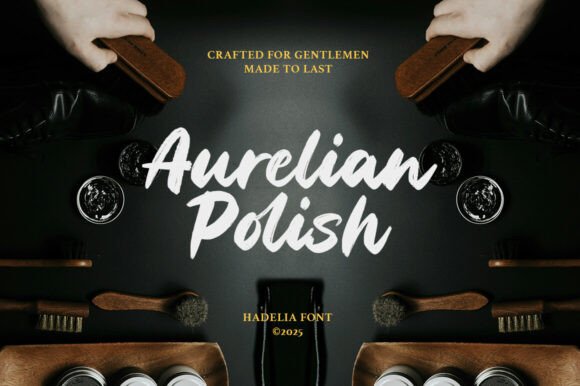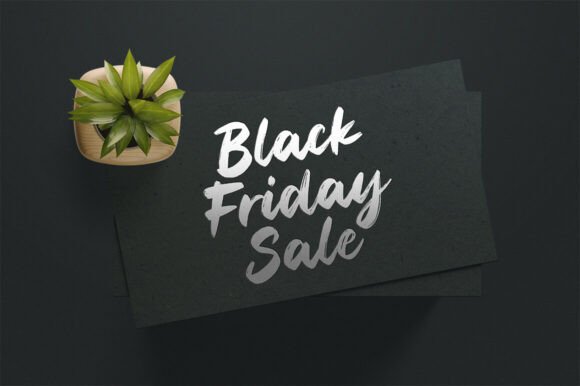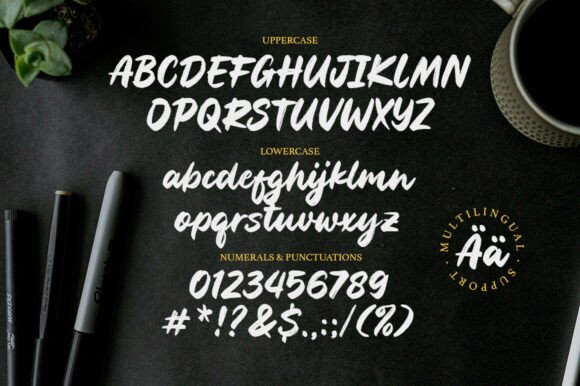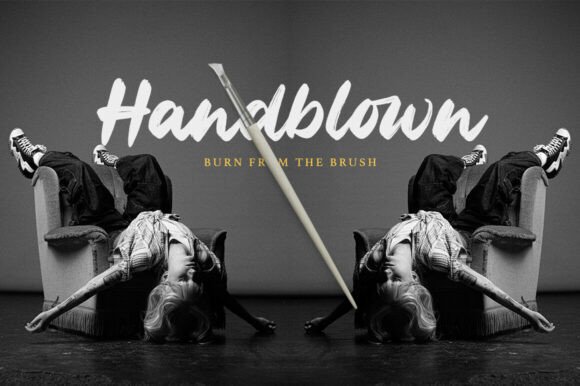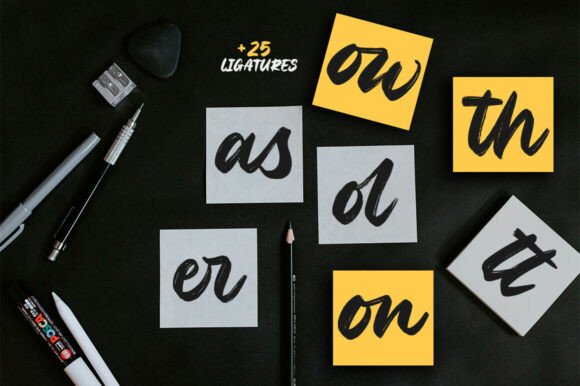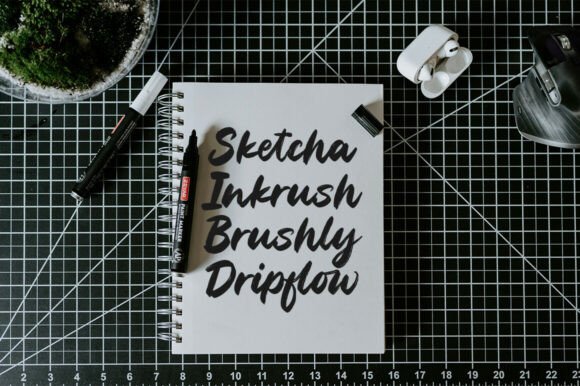
Hadelia Font: Elevate Your Designs with Bold Brush Script
Are you looking for a font that adds a touch of personality and elegance to your creative projects? Look no further than Hadelia, a bold and expressive brush script font that captures the beauty of hand-painted lettering. Crafted with authentic brush strokes, Hadelia brings a natural and dynamic feel to your designs, making it perfect for a wide range of applications.
The Characteristics of Hadelia Font
Hadelia is a unique and versatile font that boasts a range of characteristics that set it apart from other brush script fonts. Some of its key features include:
- Bold and Expressive: Hadelia is a bold and expressive font that makes a statement. Its confident strokes and dynamic letterforms are perfect for creating eye-catching headlines and titles.
- Authentic Brush Strokes: Hadelia’s authentic brush strokes give it a natural and handcrafted feel that’s perfect for designs that require a personal touch.
Uses of Hadelia Font
Hadelia is a versatile font that can be used in a wide range of creative projects, including:
- Branding: Use Hadelia to create bold and eye-catching logos that make a statement.
- Posters: Add a touch of elegance and sophistication to your posters with Hadelia’s expressive brush strokes.
- Social Media Graphics: Use Hadelia to create engaging and dynamic social media graphics that stand out from the crowd.
- Packaging Designs: Add a personal touch to your packaging designs with Hadelia’s handcrafted feel.
Why Choose Hadelia Font?
So why choose Hadelia font for your creative projects? Here are just a few reasons:
- Unique and Expressive: Hadelia is a unique and expressive font that adds a touch of personality to your designs.
- High-Quality Design: Hadelia is crafted with high-quality design principles in mind, ensuring that it looks great in any context.
Tips for Using Hadelia Font
Here are a few tips for getting the most out of Hadelia font:
- Experiment with Sizes: Hadelia looks great in a range of sizes, from large headlines to smaller body text.
- Pair with Other Fonts: Try pairing Hadelia with other fonts to create interesting and dynamic typography.
- Use in Combination with Images: Hadelia looks great when used in combination with images, adding a touch of elegance and sophistication to your designs.
In conclusion, Hadelia font is a bold and expressive brush script font that’s perfect for designers and crafters looking to add a touch of personality and elegance to their creative projects. With its authentic brush strokes, PUA encoding, and high-quality design, Hadelia is a versatile font that can be used in a wide range of applications. Whether you’re working on branding, posters, social media graphics, or packaging designs, Hadelia is a great choice.